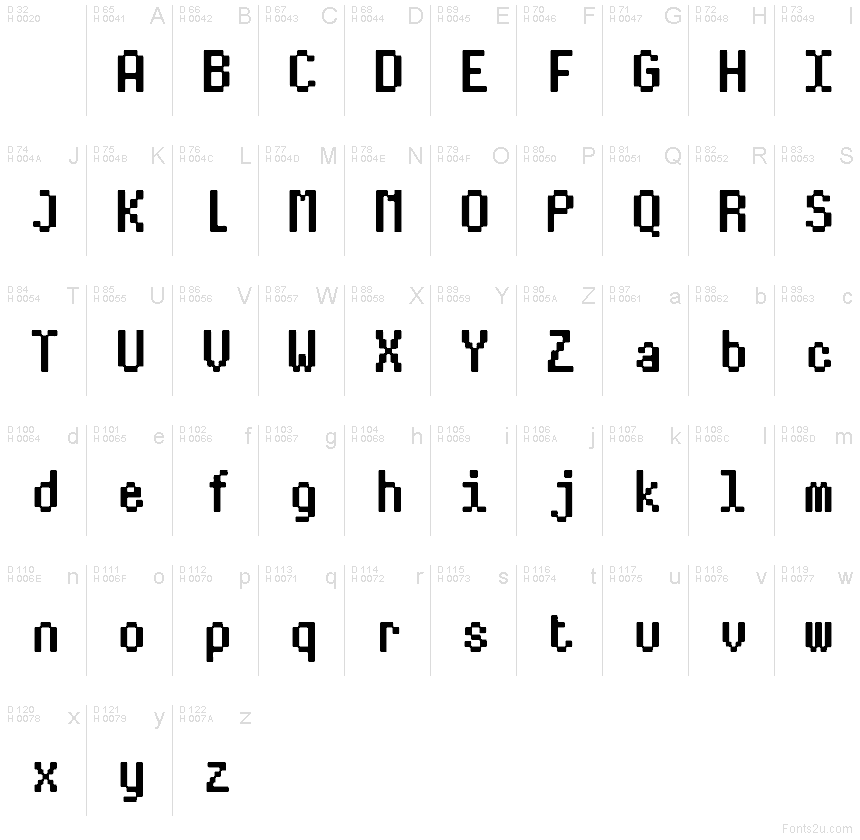
CS Strive Mono Drawn font by Craft Supply Co. is a free pixelated monospaced font. Built from soft, blocky modules with rounded corners, it turns hard-edged pixels into friendly, inky bricks. The uniform character width locks text to a steady grid, while the stepped curves and chunky joins add a tactile, game-console warmth that reads crisply at both micro and billboard scale. Part of the CS Strive family, it nails that rare mix of retro bite and approachable rhythm.
This free font shines on game UIs, tech posters, coding-themed merch, esports branding, event flyers, and YouTube thumbnails. The consistent spacing keeps titles aligned and punchy, and those pill-like pixels hold up beautifully in stickers and badges. Using CS Strive Mono Drawn, set headlines large and pair with the CS Strive family for body copy to keep layouts cohesive and readable.